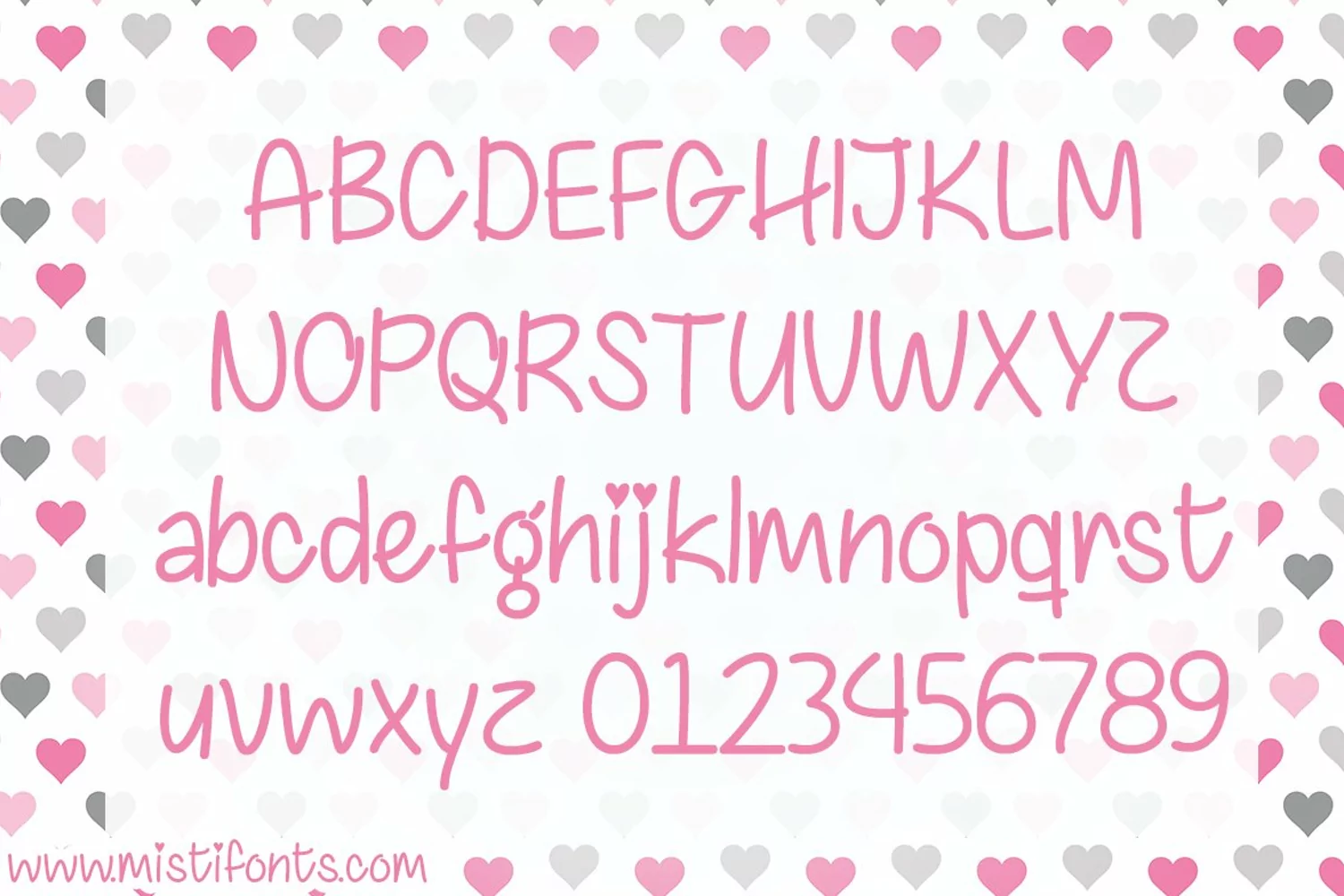
Chasing Hearts is casual and whimsical font that is perfect for your design and craft projects!
Chasing Hearts
- 234 glyphs (including uppercase, lowercase, numbers, and punctuation)